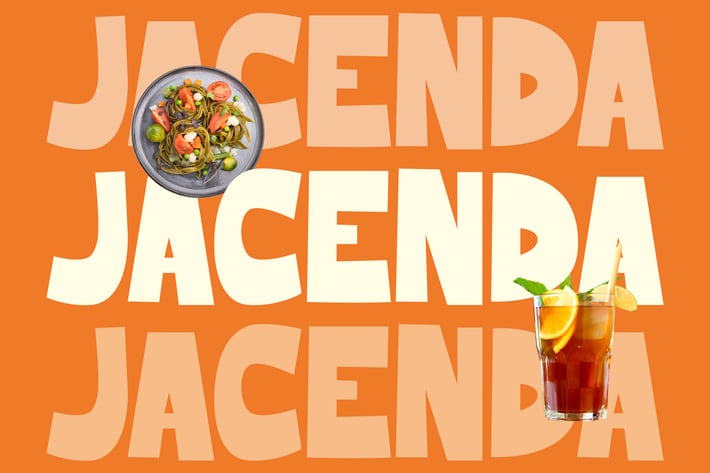
Kids Font - Jacenda
JACENDA
Jacenda is a bold, chunky geometric display font that brings instant energy to your visuals with its playful bounce and wide proportions. Inspired by the lively spirit of food trucks and pop culture menus, Jacenda features rounded corners, tight tracking, and loud, upright letterforms that command attention while keeping things fun and friendly. Whether you’re designing for street food festivals, vibrant social campaigns, or product packaging, Jacenda’s expressive personality makes it impossible to ignore.
Designed for visual impact, Jacenda is your go-to choice when you need a font that shouts fun, flavor, and freshness. Its confident yet inviting tone makes it perfect for restaurant branding, food delivery apps, poster headlines, or any design that calls for a joyful, high-energy vibe. Jacenda doesn’t whisper—it speaks loud and clear to modern, expressive audiences.
Key Features
Why creatives choose Jacenda :
- Bold & Loud: Designed to grab attention from afar
- Playful Personality: Perfect for kids branding, snacks, and entertainment
- Geometric Style: Clean, modern curves with powerful structure
- Versatile Use: Works great on packaging, banners, thumbnails, and digital ads
- Readability First: Despite its quirky form, each letter stays crystal clear
Basic Latin A-Z and A-z
Inject your designs with flavor and fun—Jacenda is made to turn heads and leave a lasting impression. Whether you're a brand designer, illustrator, or packaging wizard, don’t miss the chance to add this bold and joyful typeface to your creative toolkit.